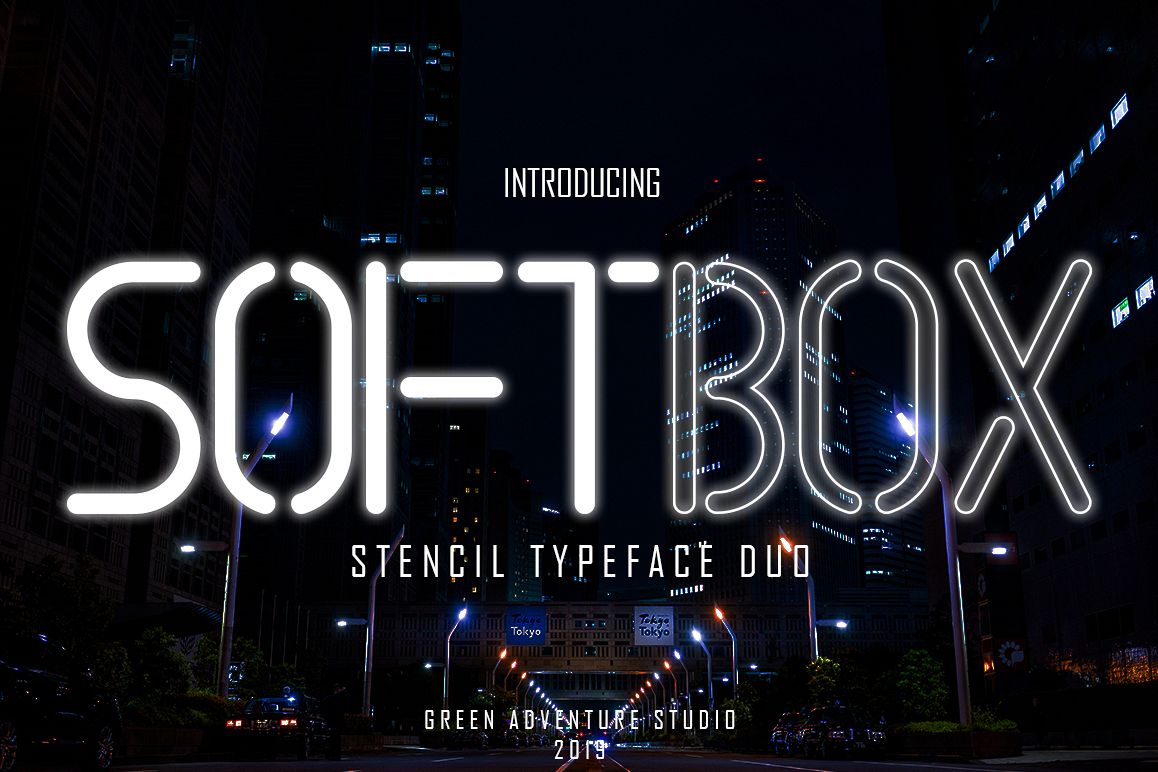
SOFTBOX - STENCIL TYPEFACE FONT DUO
SOFTBOX
This modern stencil style font that I designed is only present in one uppercase letter and comes in Regular. Most of the letters in the set have a break line that gives a feel of a stencil. The round terminal gives this font a relaxed quality, making it great for most types of design projects. SOFTBOX is perfect for logos or social media graphics. This is not a font for long text but rather for titles and subtitles.